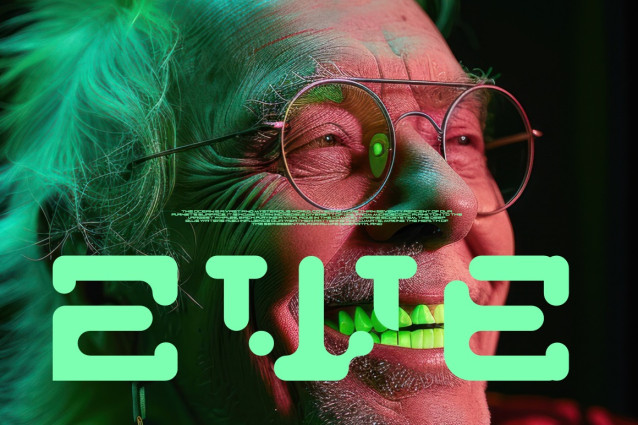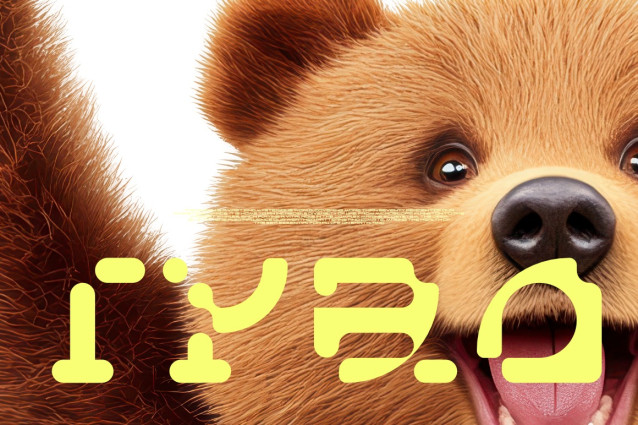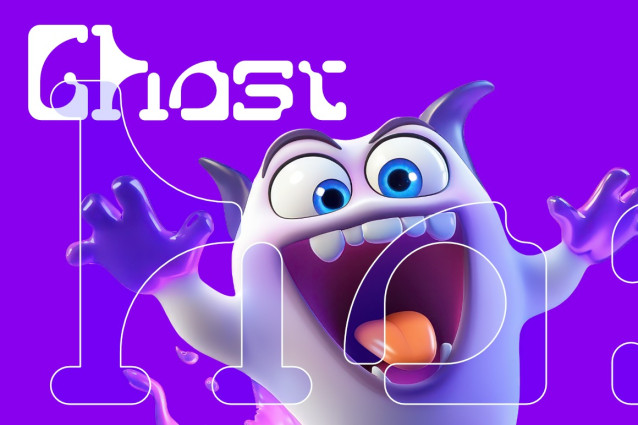
Groutpix Flow Alien Font
Groutpix Flow Alien Font is a simple and modern display font suitable for quotes, logos, headings, titles, and many more. Use it on any of your creative projects, and your designs will become outstanding!